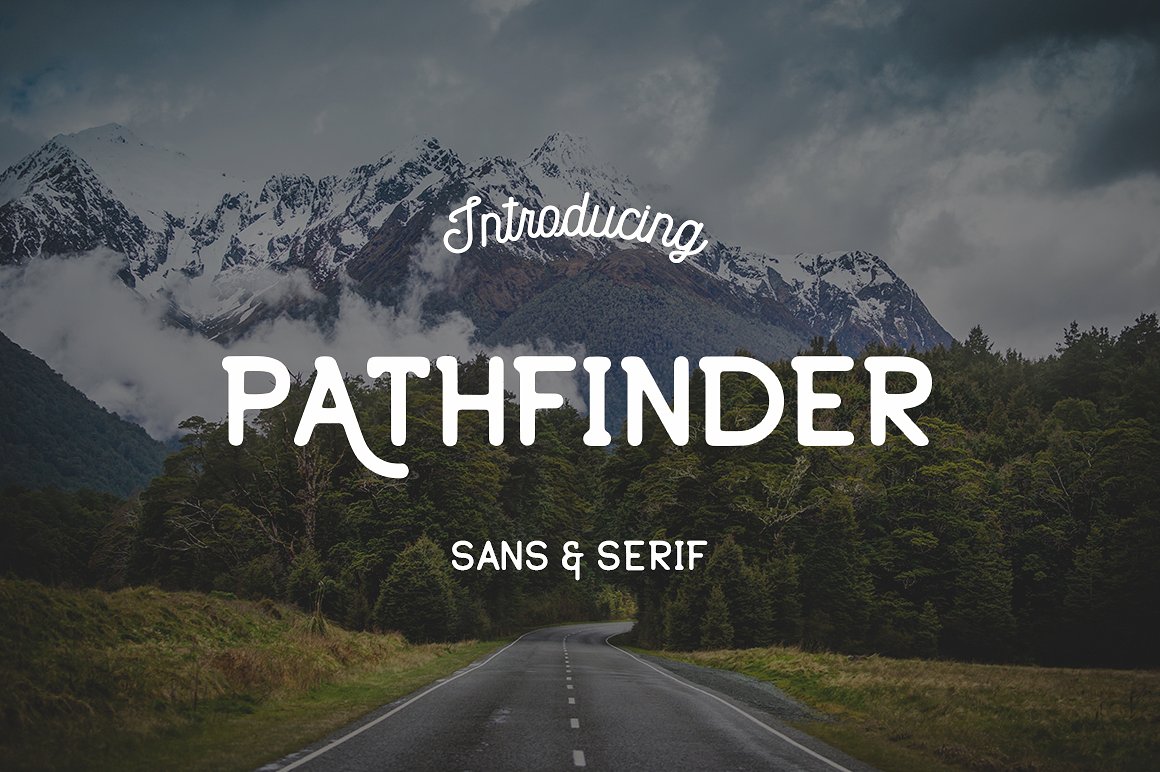
Pathfinder Typeface
Introducing my new font Pathfinder. This font have a rounded corners, and you can chose what you use, sans or serif. Also i added some alternates which you can see at the preview. It is a great idea to use it for logos, inspirational quotes, t-shirt graphics, typography art, apparel, labels, badges, posters,business cards, stylized wedding invitations, prints, signs, emblems, book cover designs headlines, titles, etc.